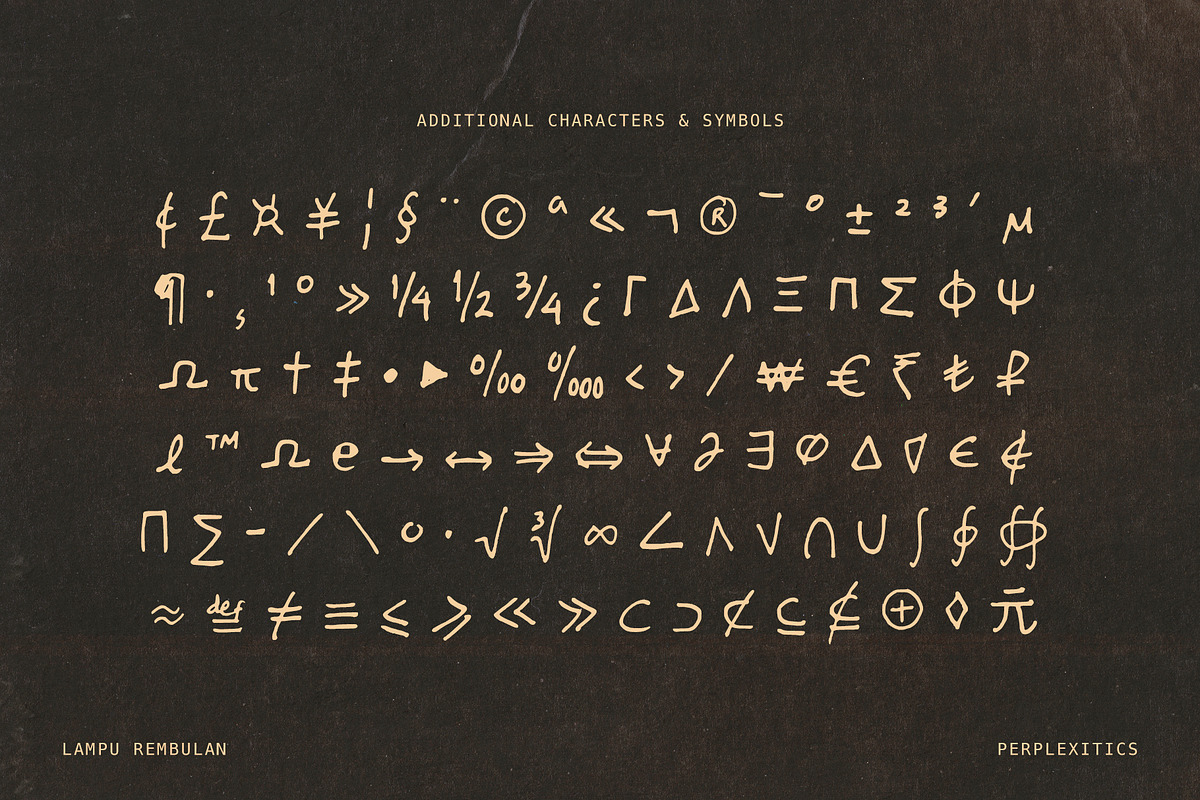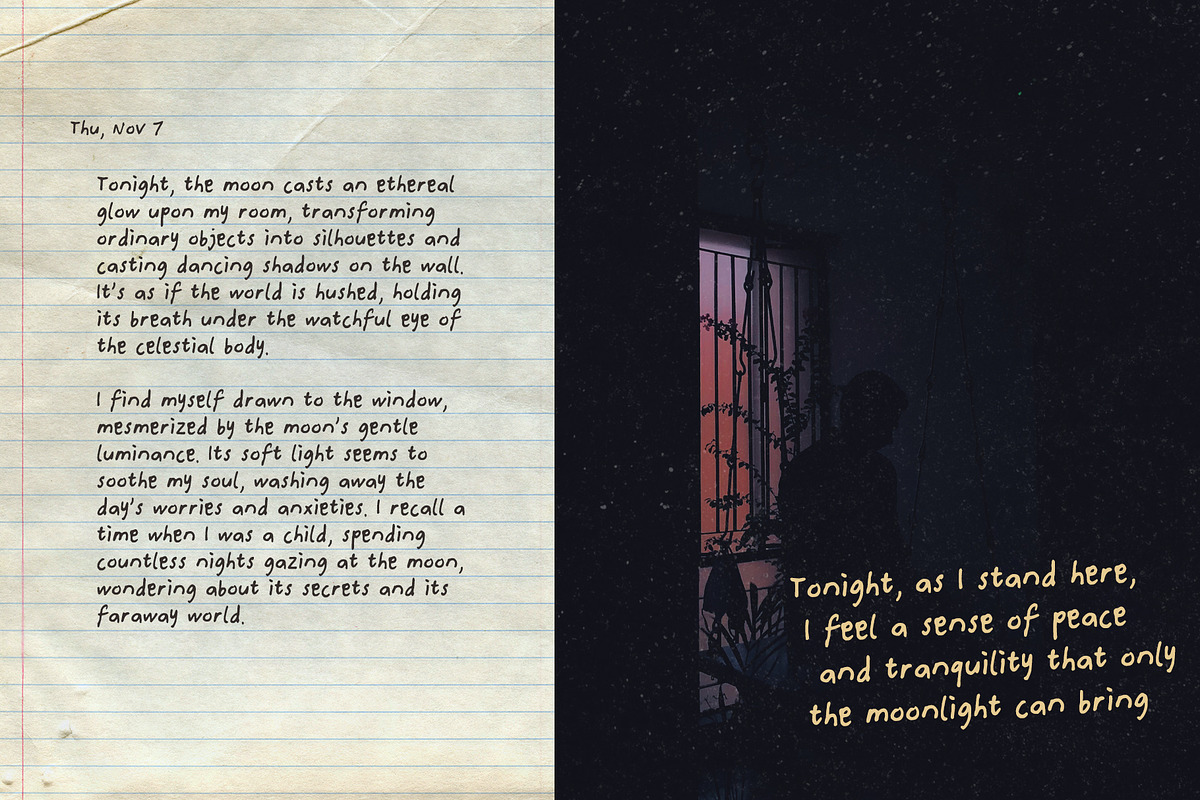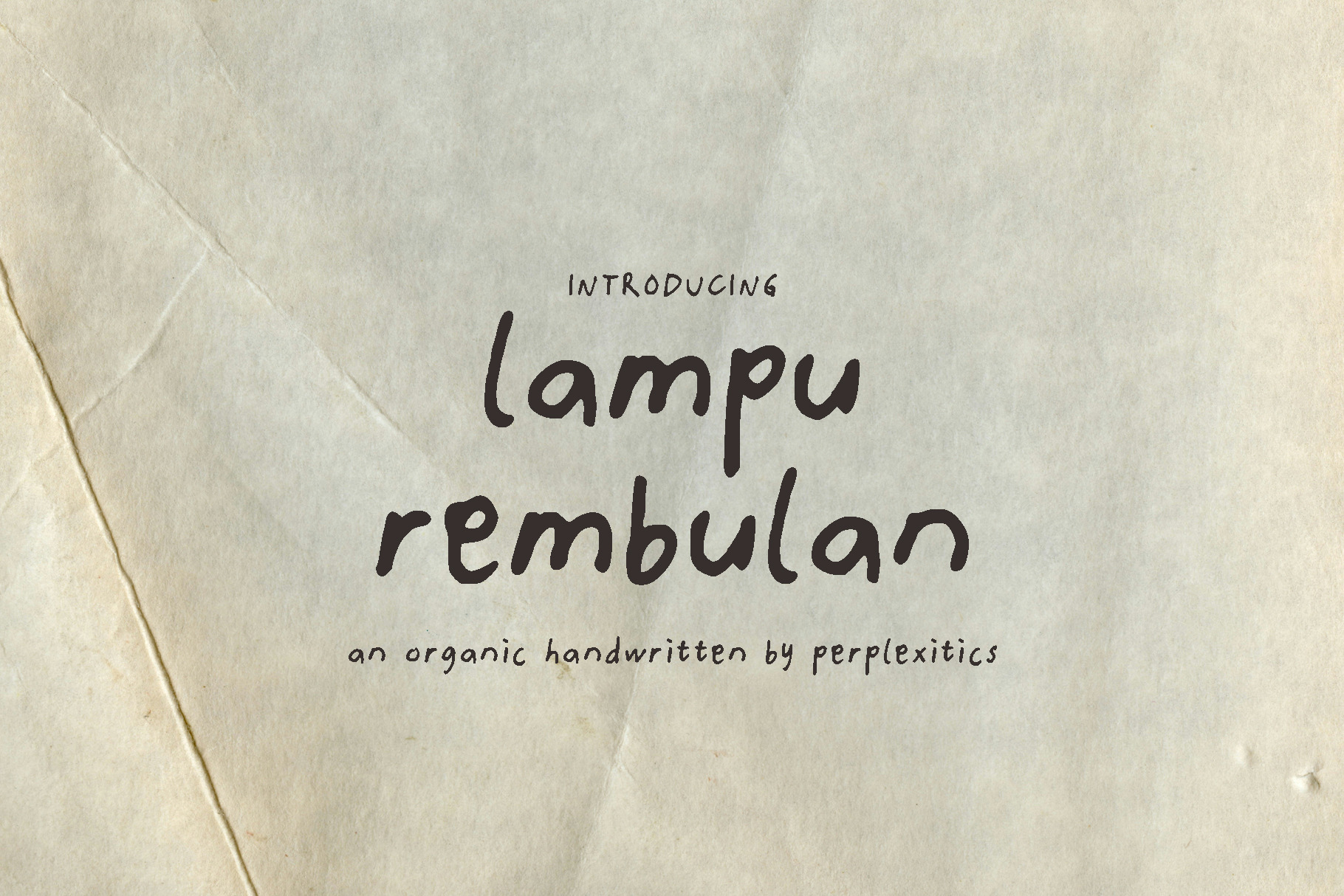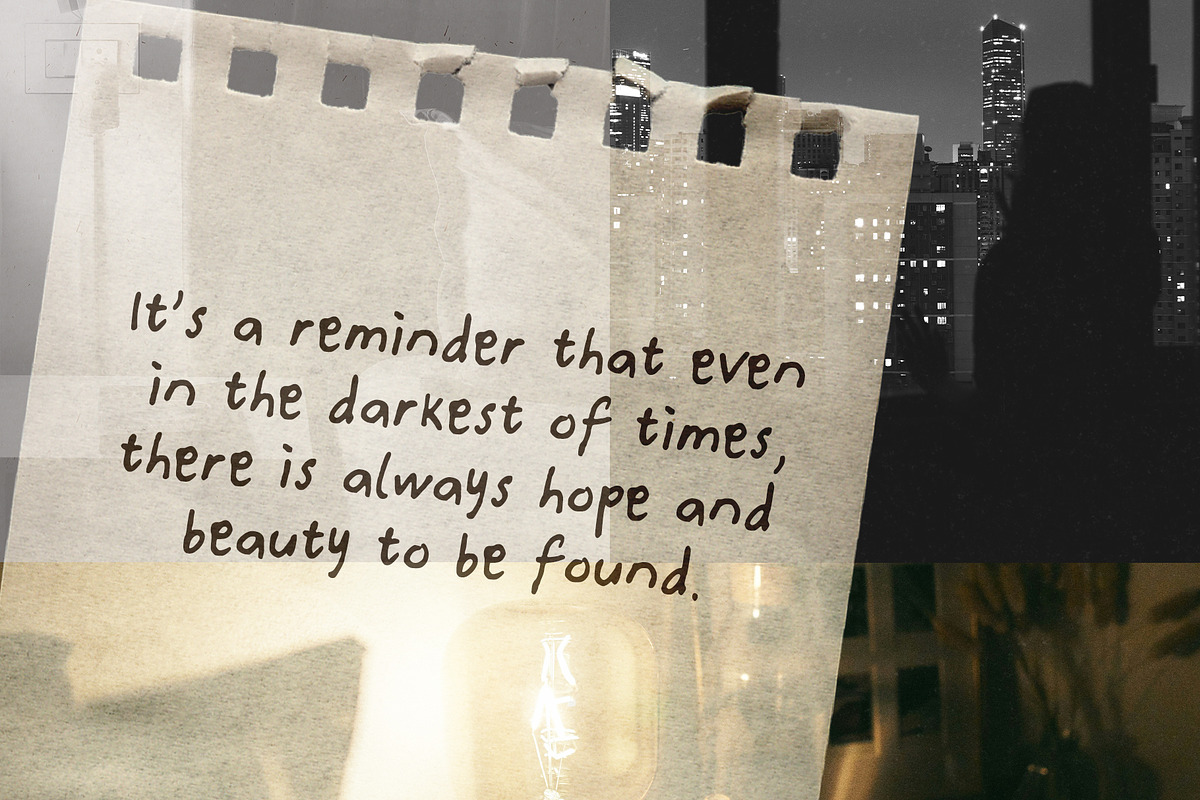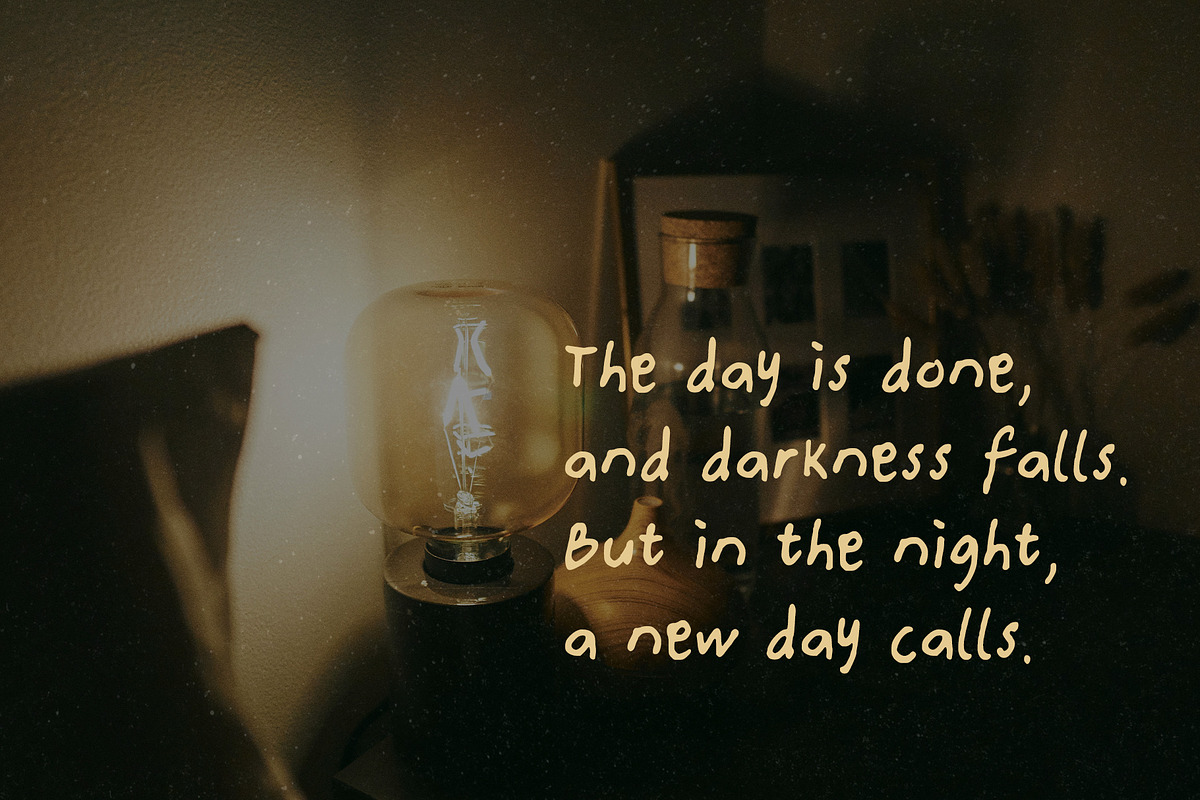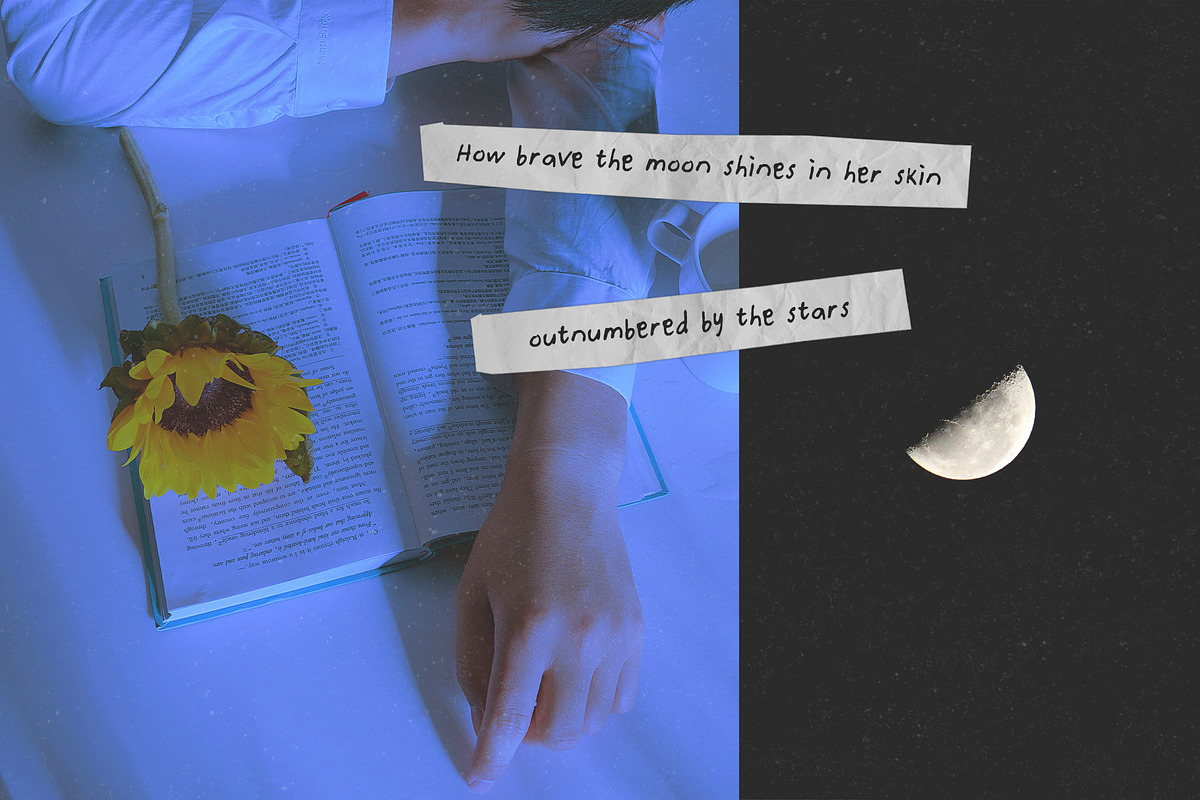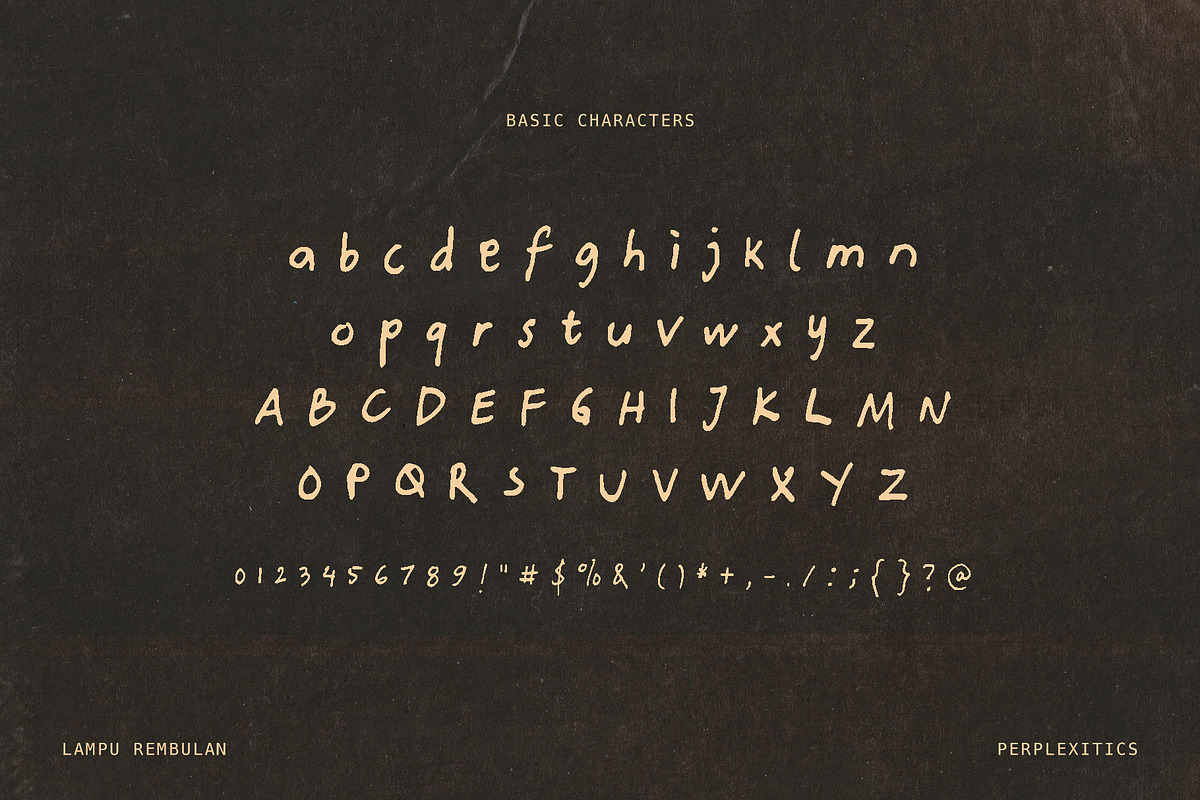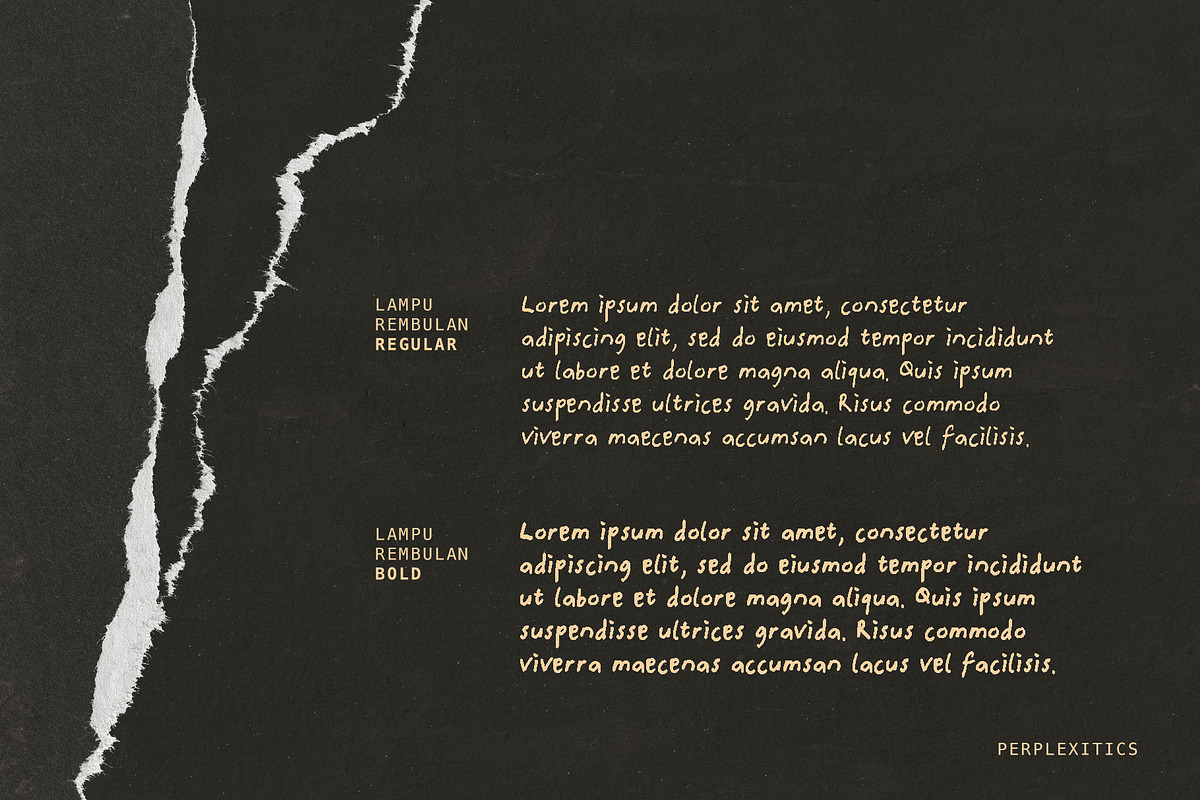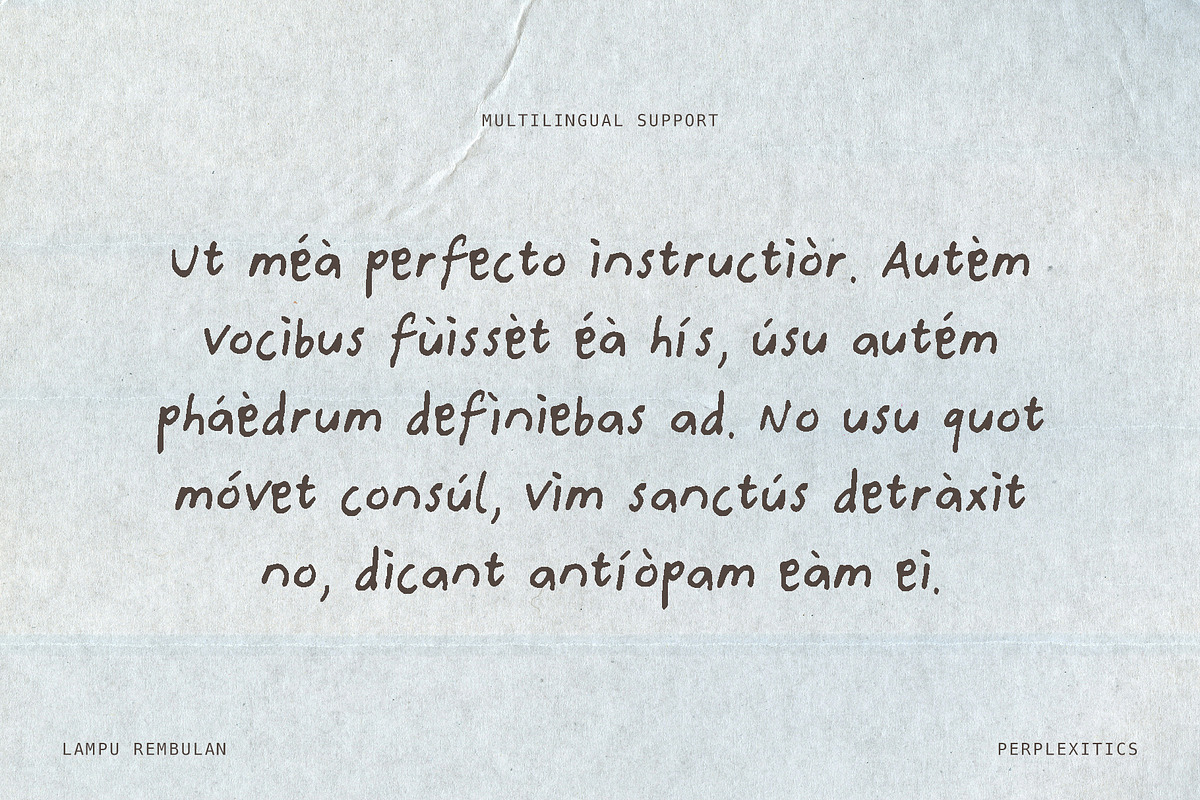
Lampu Rembulan Handwritten Font
Lampu Rembulan Font is perfect for branding, personalized gifts, and other creative projects. This versatile font adds a unique touch to any creation. Handcrafted with love, it embodies a natural and artistic feel, making it ideal for artists, crafters, and DIY enthusiasts.
Lampu Rembulan Font is packed with everything you need, including uppercase and lowercase letters, numbers, and punctuation. Multilingual support.